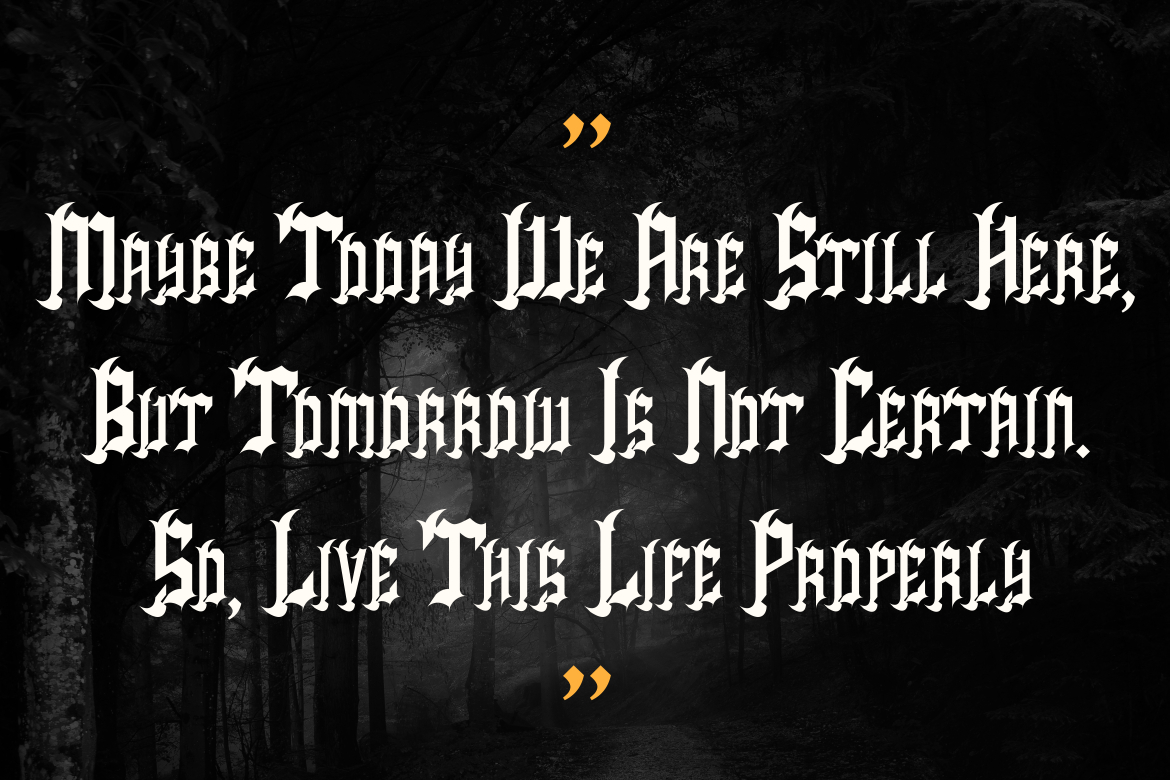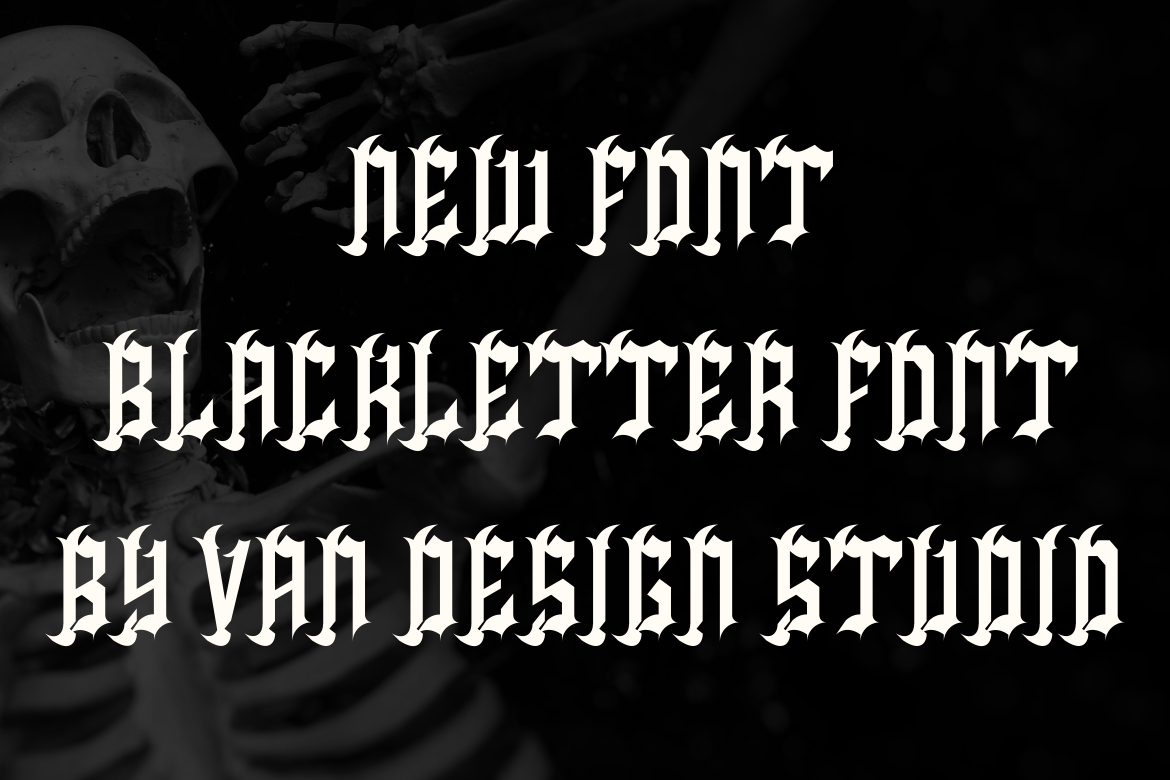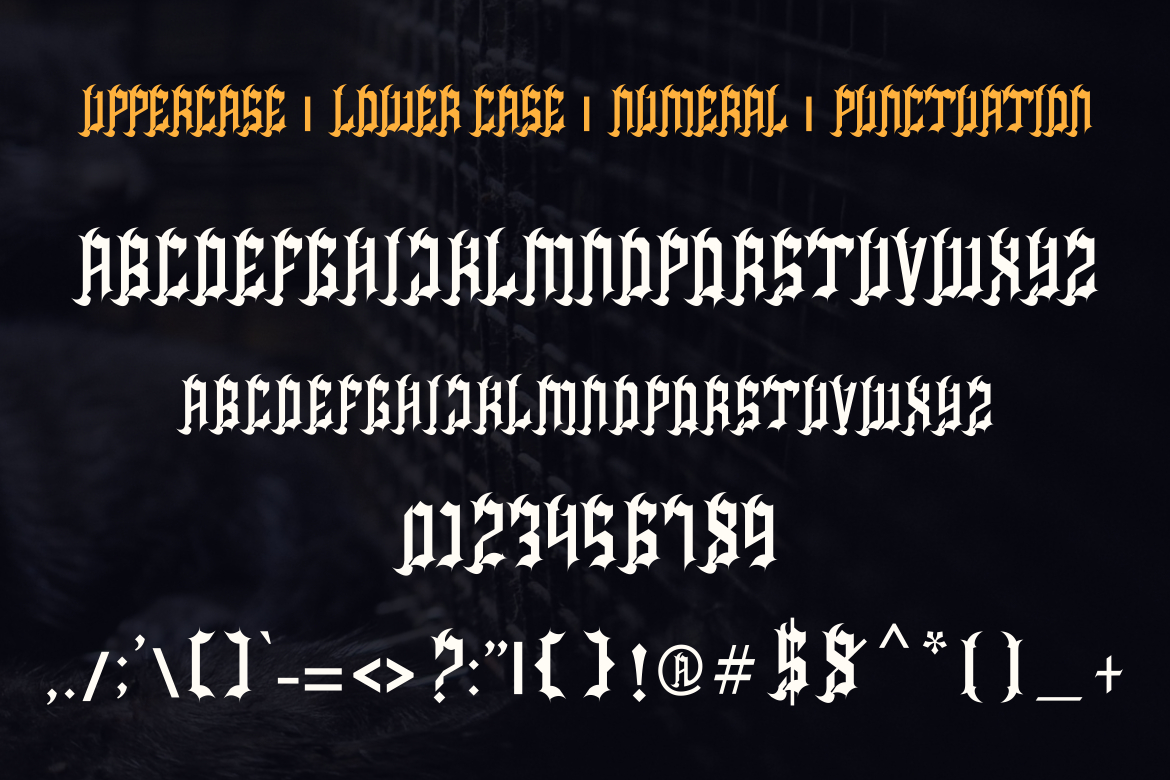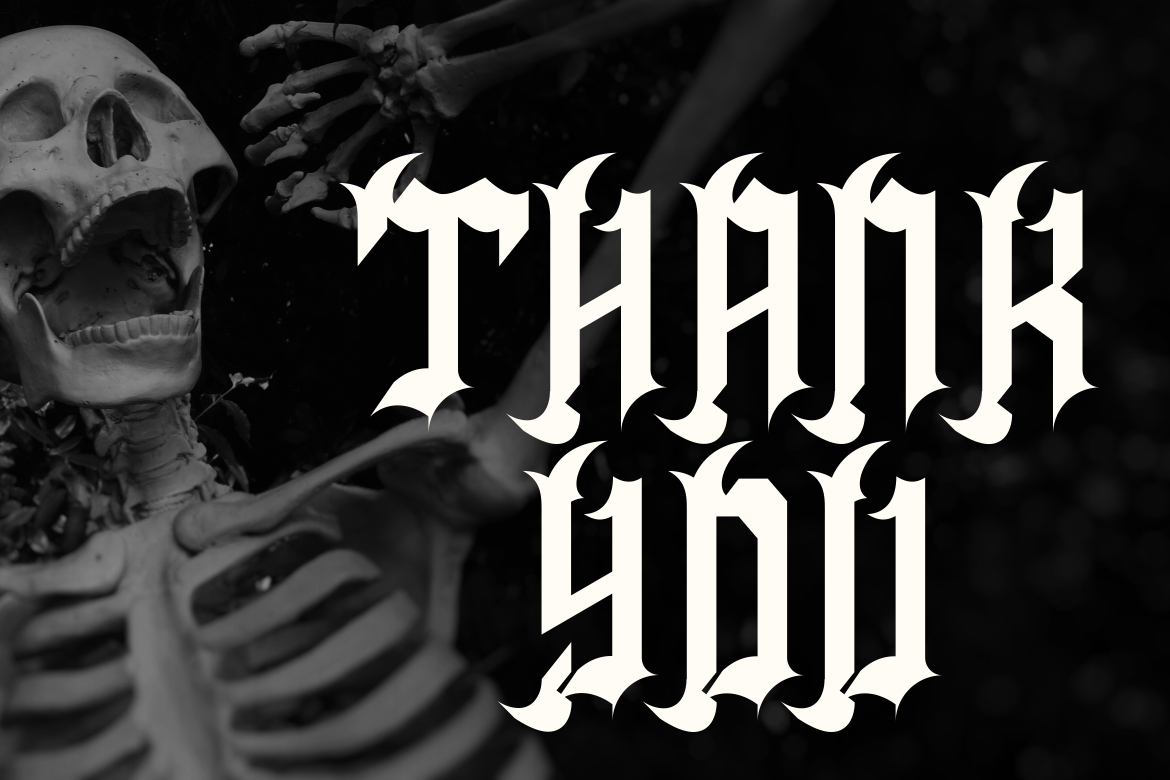
Sawery Ramuz Font
About Sawery Ramuz Font
Sawery Ramuz is a bold and thick lettered blackletter font. Add it confidently to your projects, and you will love the results.